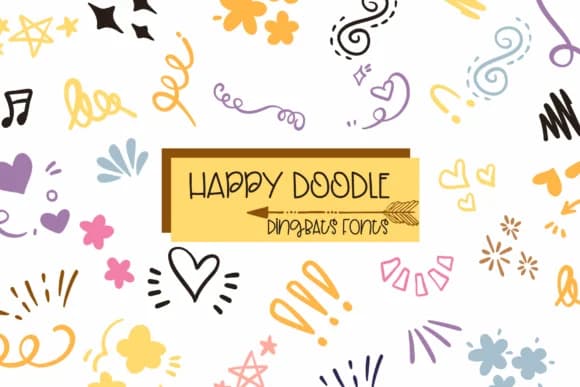
1 / 8About Happy Doodle Font
Happy Doodle by Sirinart is a hand-drawn dingbat collection that brings real sketch-style charm to your work. This font houses a rich set of icons including hearts, stars, flowers, musical notes, spirals, bursts, and celebratory shapes, each one rendered with the loose, natural feel of marker or pen work on paper. Smooth strokes and a sketch aesthetic make these symbols feel genuinely handcrafted rather than sterile or mass-produced, which is exactly what you want when aiming for authentic, personal creative projects.
You'll find these icons particularly useful for wedding invitation embellishments, bullet journal spreads, DIY greeting card layouts, and Etsy product label designs. The collection provides enough visual variety to layer elements without repetition, and each symbol carries that informal, approachable energy that feels equally at home in scrapbook pages, planner spreads, or printed craft projects. Designers working on craft-focused work especially appreciate how the icons read as intentional decoration rather than random filler. The doodles integrate naturally with hand-lettered typography as well, so combining them alongside custom script fonts creates genuine, cohesive layouts that don't feel awkwardly assembled.
Happy Doodle Font is a versatile dingbats font that works for both headings and body text. Pair it with a contrasting sans-serif or serif font to add visual interest and a clear distinction between titles and body copy.